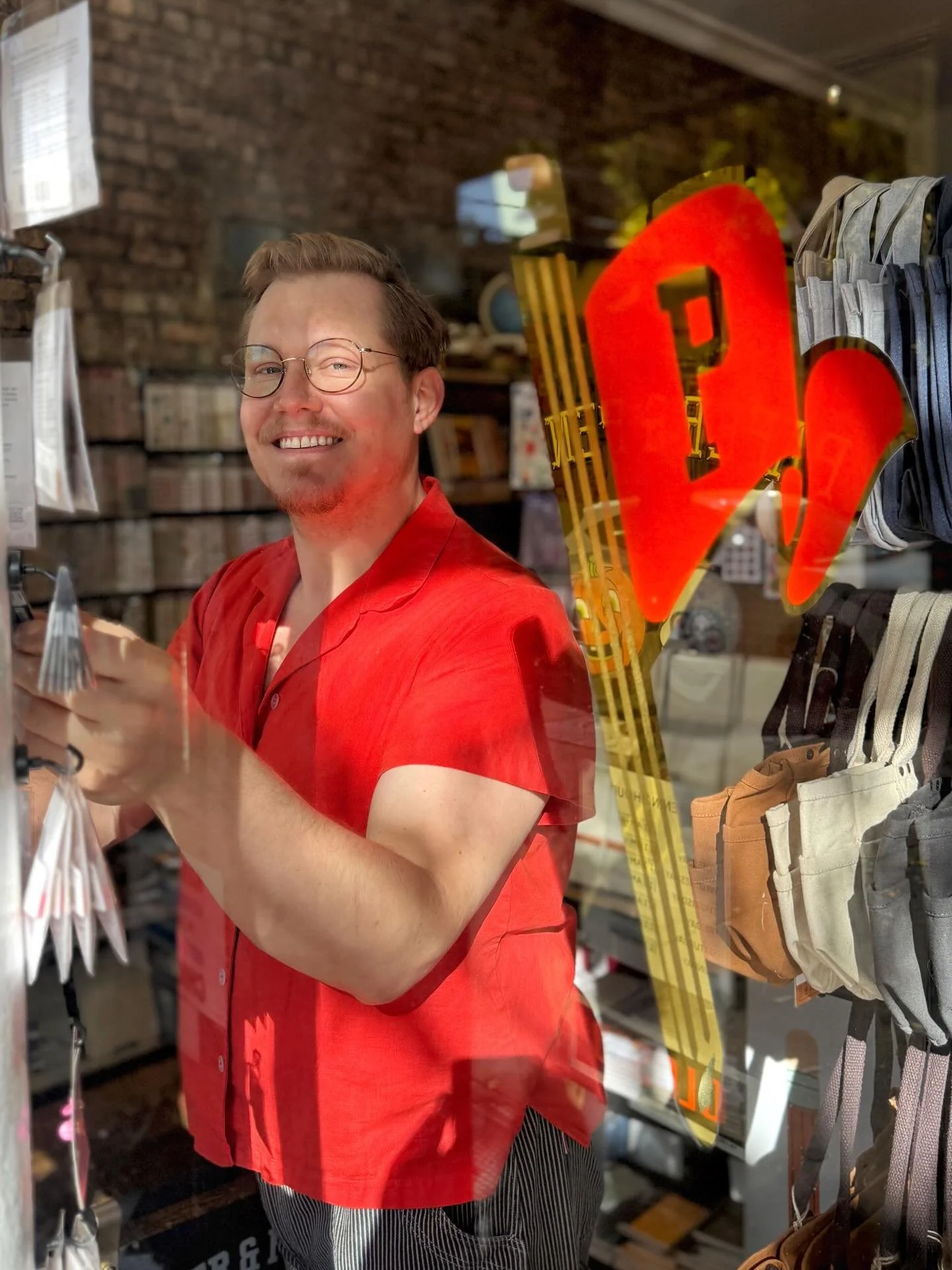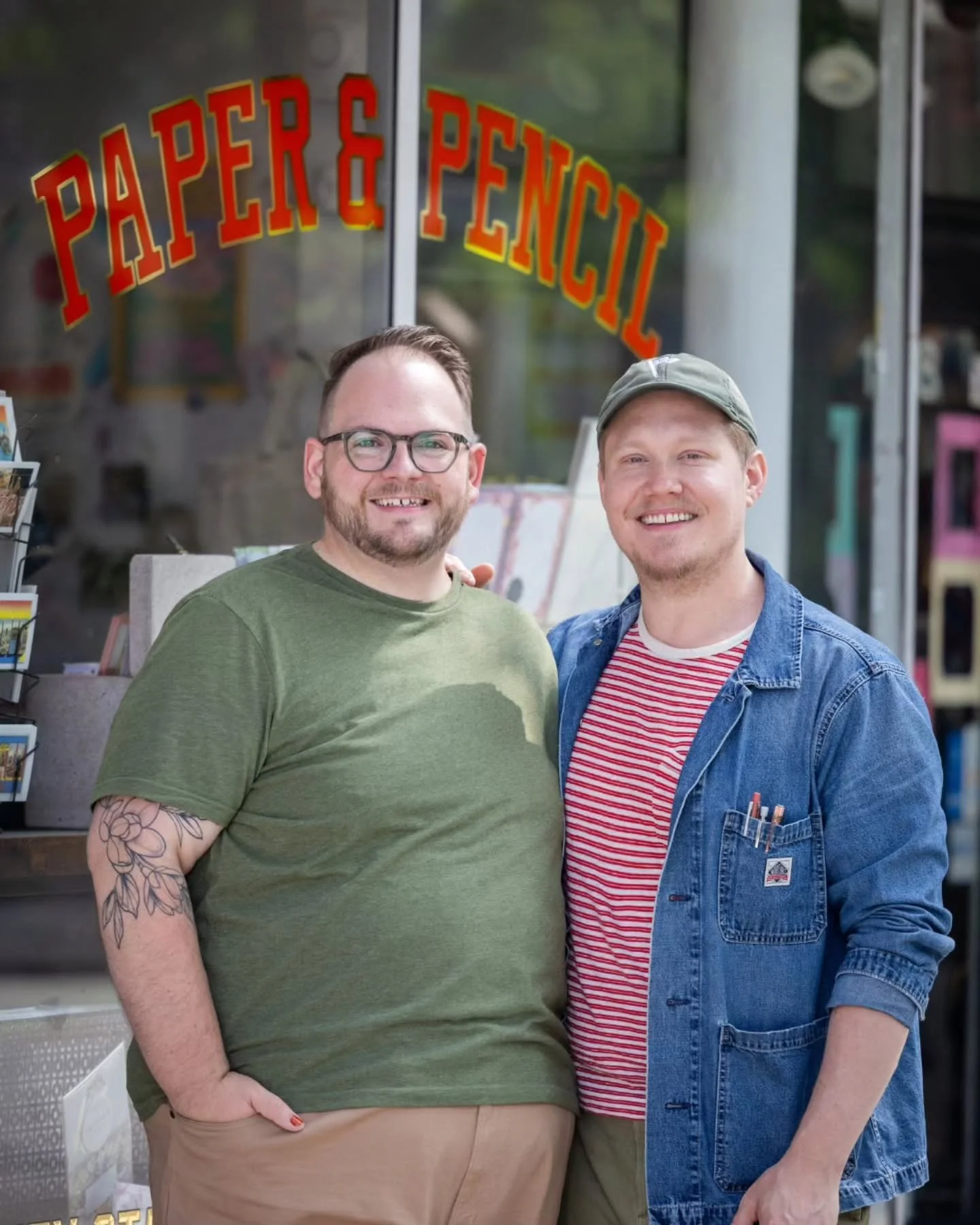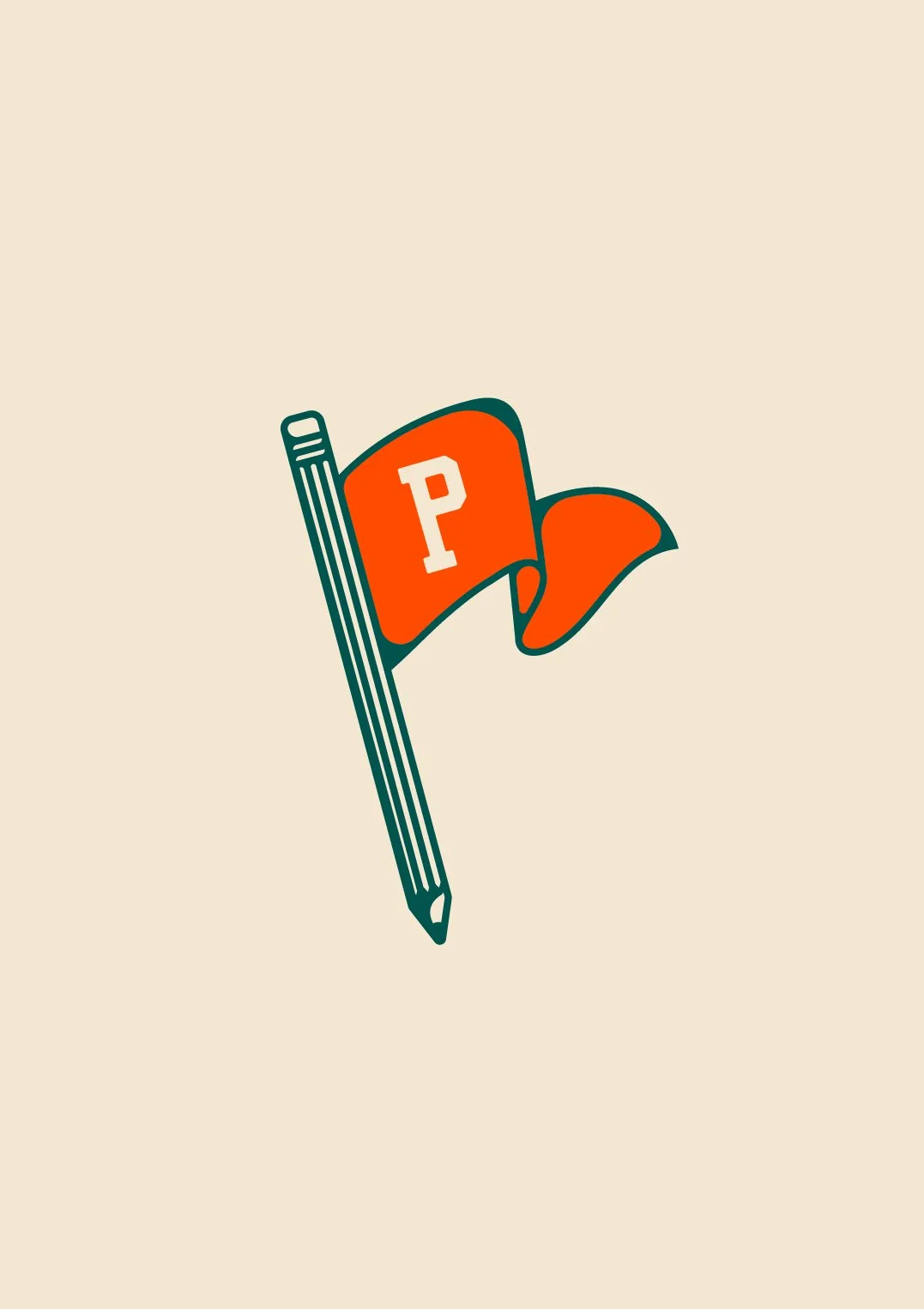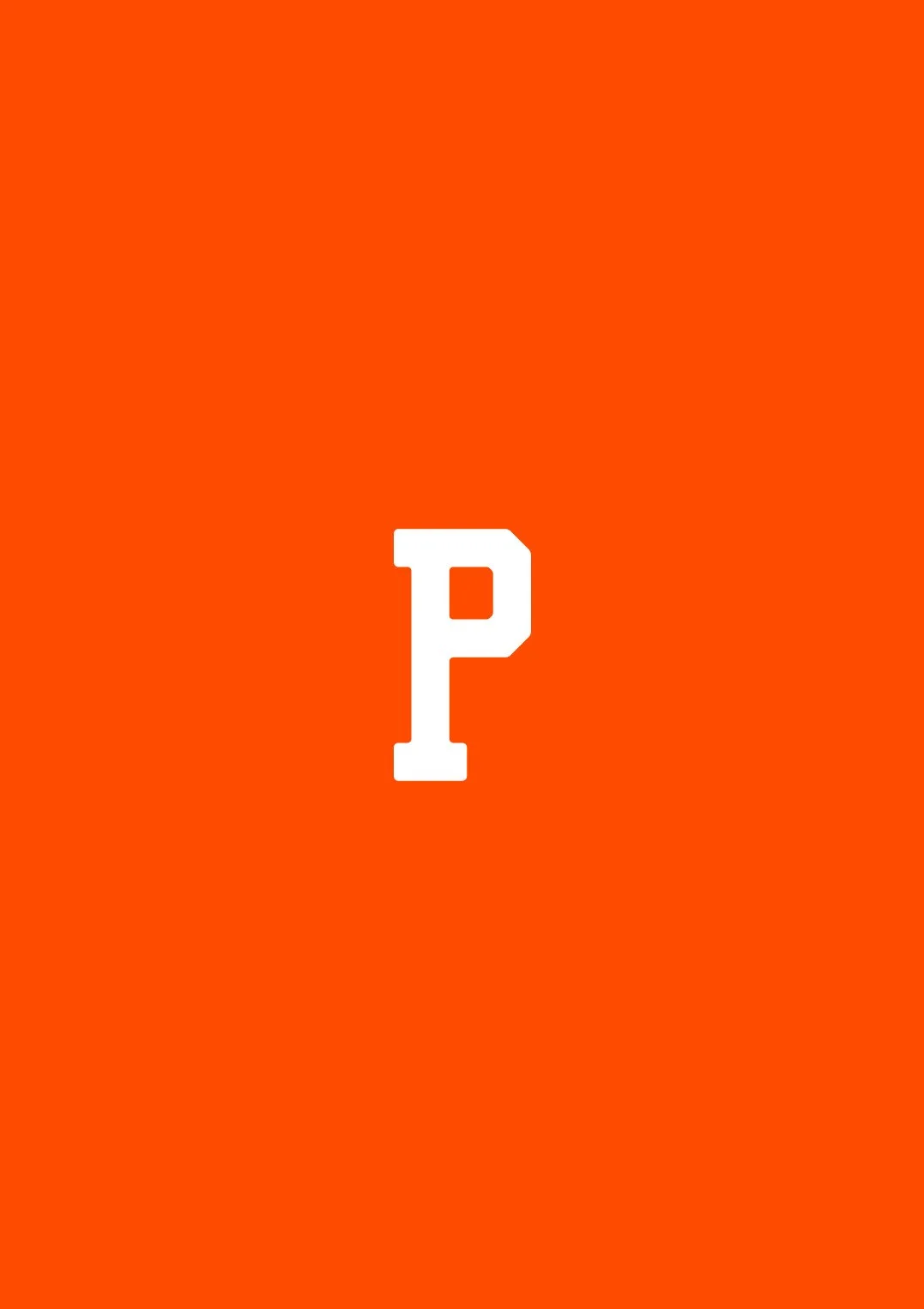
Paper & Pencil®
Paper & Pencil is a local, independent, and queer-owned Stationery Shop located in Chicago, IL.
At Paper & Pencil you'll find stationery, writing tools, notebooks, journals, calendars, and planners, alongside bullet journaling, home office, and school supplies
We wanted to create something that felt like timeless nostalgia. So, we leaned into the collegiate vibes meshed with some modern applications.